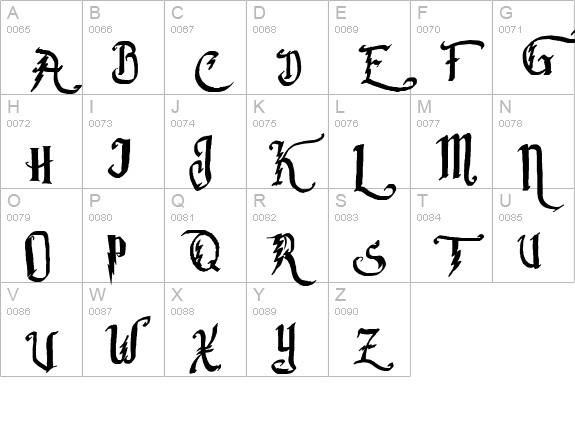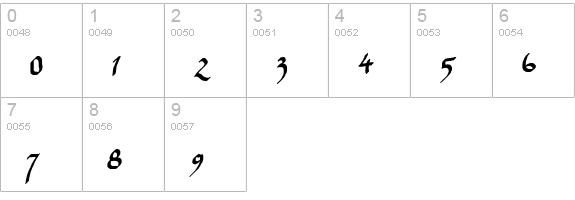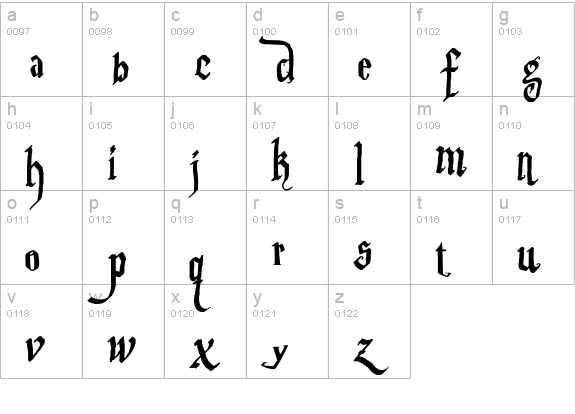
Introducing Parry Hotter, a whimsical and enchanting font that is sure to add a touch of magic to any project. This free font captures the essence of the beloved wizarding world, with its playful curves and mischievous letterforms. Parry Hotter is perfect for all your creative needs, whether you're designing a spellbinding invitation, crafting a mystical logo, or conjuring up a fantastical poster. Its captivating charm will transport your audience to a realm of imagination and wonder. But what truly sets Parry Hotter apart is its accessibility. This font is freely available to download at FontsMarket.com, allowing you to unleash its bewitching power without any cost. Now, you can effortlessly harness the magic of Parry Hotter and make your designs truly enchanting. With its extensive character set and versatile nature, Parry Hotter offers endless possibilities for customization. Whether you prefer to use it in lowercase or uppercase, Parry Hotter adapts beautifully to any design concept. Its unique flourishes and intricate details make it a standout choice among other fonts, ensuring that your creations will leave a lasting impression. So, if you're ready to embark on a creative journey filled with whimsy and charm, look no further than Parry Hotter. Download this captivating font for free at FontsMarket.com and let your imagination take flight. Embrace the magic of Parry Hotter and let your designs cast a spell on the world.